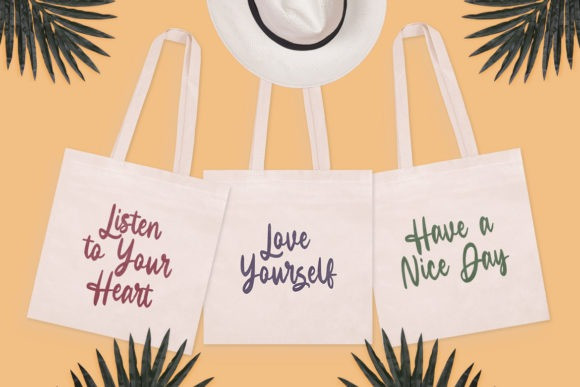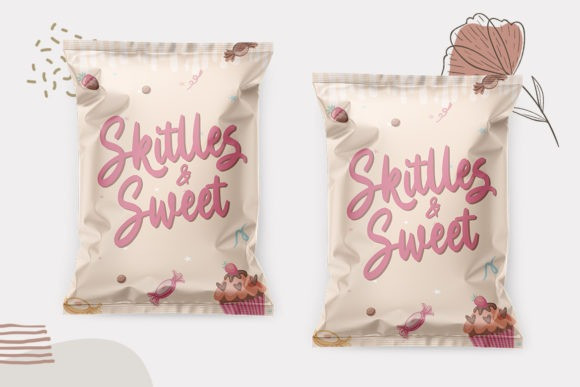
Lunchroom Script Font
Lunchroom – Modern Script Font is a font with distinctive handwritten characters perfect for branding projects, logos, wedding designs, media posts, advertisements, product packaging, product designs, labels, photography, watermarks, invitations, stationery, and any project who need handwritten dishes.